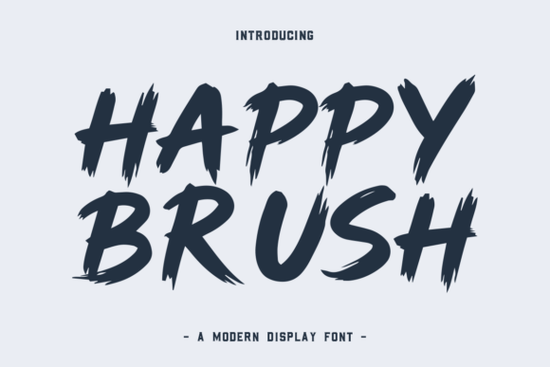
If you’ve been looking for a brush font that feels like it was painted by hand with just the right amount of bounce and charm you’ll want to take a closer look at Happy Brush Font. It’s not overly polished or rigid, which is exactly what makes it so useful. Whether you’re designing greeting cards, social media posts, or product packaging, this typeface adds a relaxed, joyful energy without trying too hard.
What stands out about Happy Brush is how naturally it flows. The strokes feel spontaneous, like someone quickly jotted down a happy thought with a paintbrush. There’s texture in the curves, slight imperfections in the edges, and enough variation between letters to keep things visually interesting. That makes it especially handy if you’re working on projects meant to feel personal think birthday invites, handmade-style labels, or inspirational quote graphics.
What kinds of projects work best with Happy Brush?
This font shines when you need something friendly but still legible. Here are some real-world uses designers and small business owners love:
- Invitations & greeting cards – Its casual rhythm pairs well with handwritten-style layouts.
- Social media banners and stories – Adds warmth to quotes, announcements, or promotions.
- Product packaging – Especially effective for food, kids’ items, or anything with a handmade vibe.
- Branding elements – Use it for logos, taglines, or accent text where personality matters more than formality.
- T-shirts, mugs, and print-on-demand items – Works great as a headline font over simple backgrounds.
If you’re pairing fonts, consider balancing Happy Brush with something clean and minimal. For example, try using it alongside Steel Font for contrast the sharp sans-serif keeps things grounded while Happy Brush brings the fun. Or if you’re going for a youthful, energetic combo, pair it with School Varsity Font to create a playful sports or back-to-school theme.
How does it compare to other brush fonts?
Not all brush fonts are created equal. Some feel stiff or digitally perfect, which defeats the purpose of that “handmade” look. Happy Brush avoids that trap it leans into its organic imperfections. If you’ve tried fonts like Bold Kids Font or Good Vibes Only Duo Font, you’ll notice Happy Brush sits somewhere in between: less cartoony than Bold Kids, but more approachable than Good Vibes’ sleek script.
And if you’re used to heavier, grittier display fonts like Dirty Strong Font, Happy Brush offers a refreshing alternative when your project calls for lightness instead of intensity.
A note for crafters and POD sellers
If you sell designs on Etsy, Redbubble, or similar platforms, Happy Brush can help your listings stand out. Customers browsing for “fun fonts” or “hand-painted style” often respond to the visual texture this font provides. It photographs well, scales cleanly, and doesn’t lose its character at smaller sizes which is rare for brush fonts.
Any tips for getting the most out of this font?
A few practical suggestions based on how designers actually use it:
- Don’t overuse it. One or two words? Perfect. A full paragraph? Probably too much. Let it breathe.
- Adjust letter spacing slightly if stacking lines it helps avoid visual crowding.
- Try it over textured backgrounds like paper, fabric, or watercolor washes. The brush strokes blend beautifully.
- Use color intentionally. Bright pastels enhance the cheerful vibe; deep tones give it a more modern, artistic edge.
Final thought
Fonts like this don’t need to be “perfect” to be effective. Sometimes, the little wobbles and uneven ends are what make a design feel human. Happy Brush gets that balance right. It’s not trying to be fancy it’s trying to be friendly. And in a world full of overly polished graphics, that’s a welcome change.